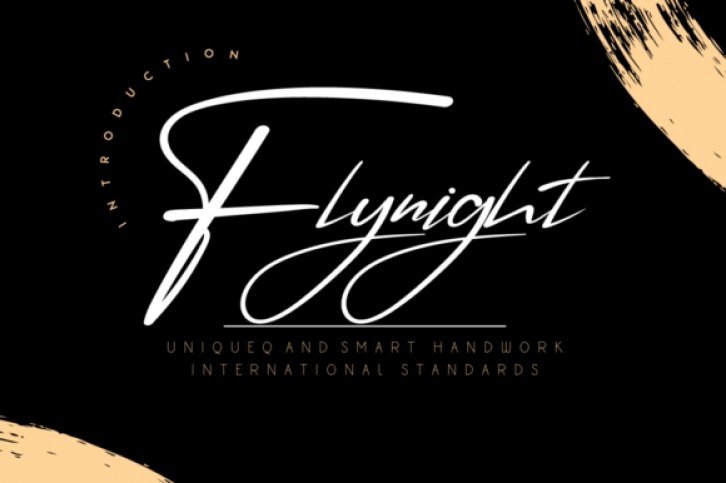
Flynight is an incredibly distinct, relaxed and timeless handwritten font. It looks stunning on wedding invitations, thank you cards, quotes, greeting cards, logos, business cards and every other design which needs a handwritten touch.